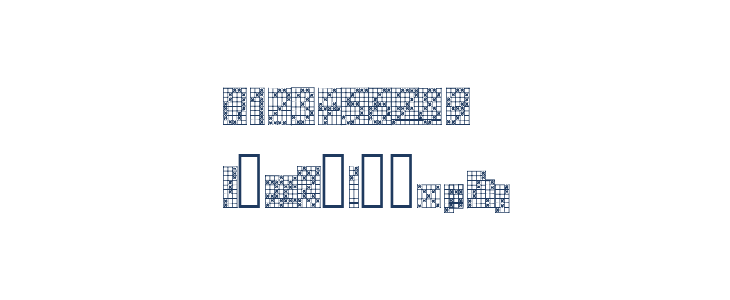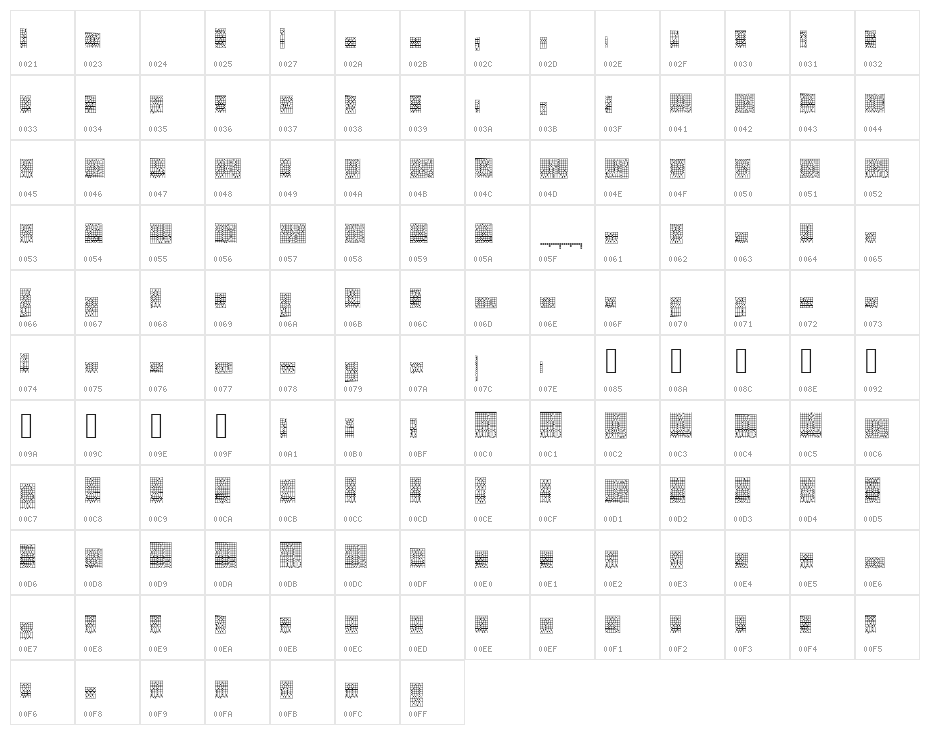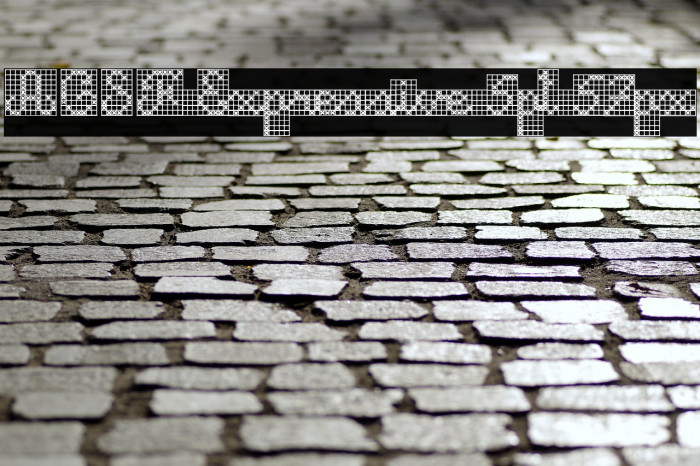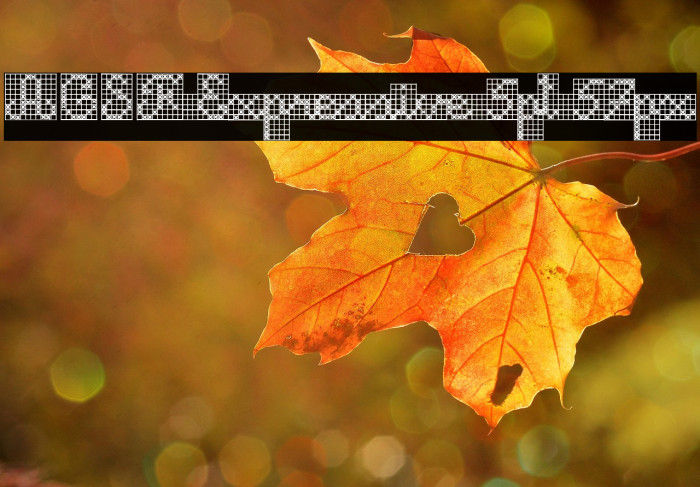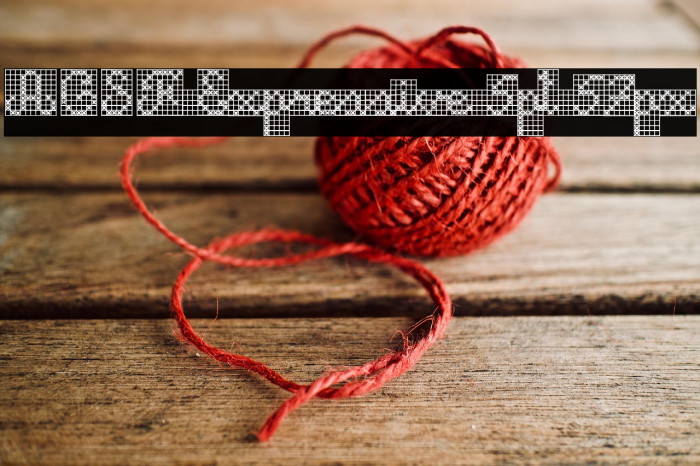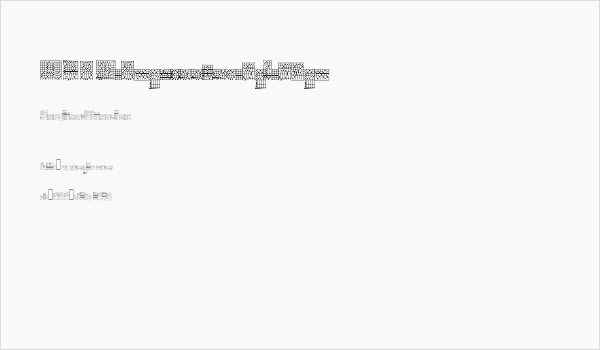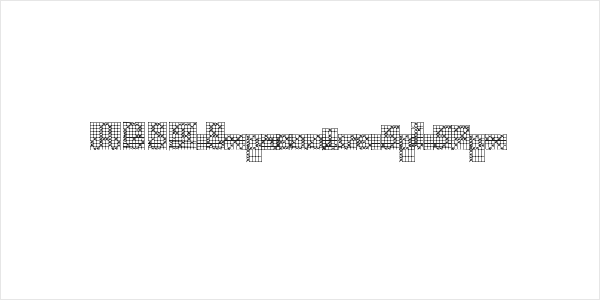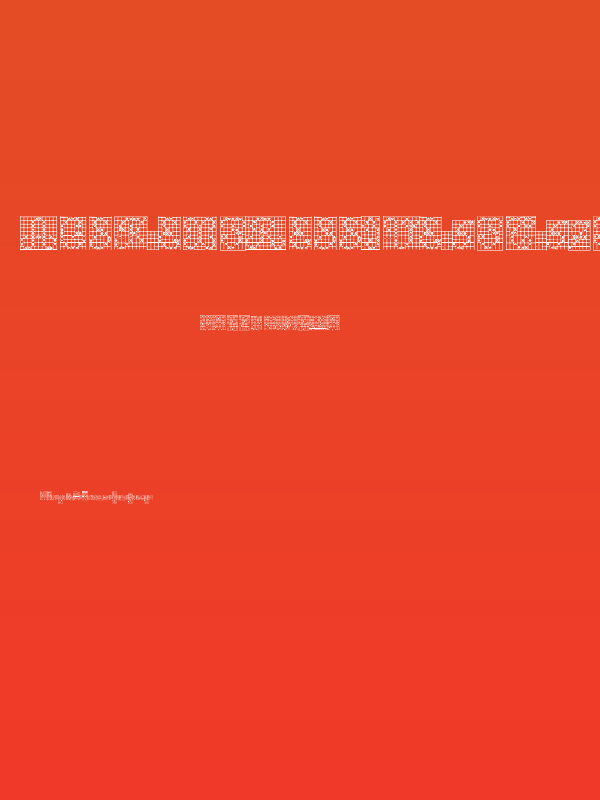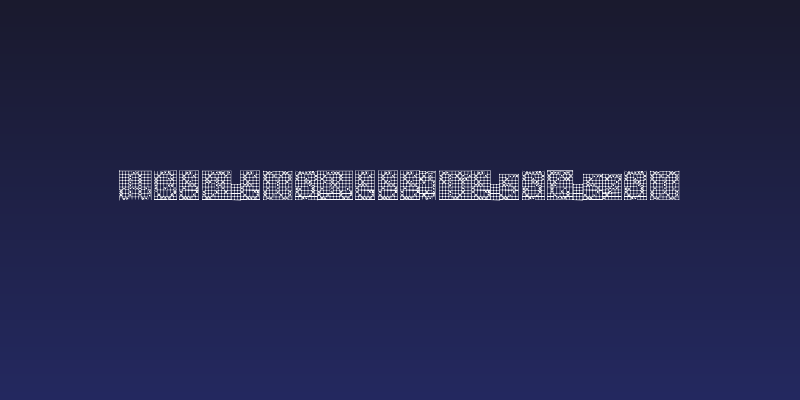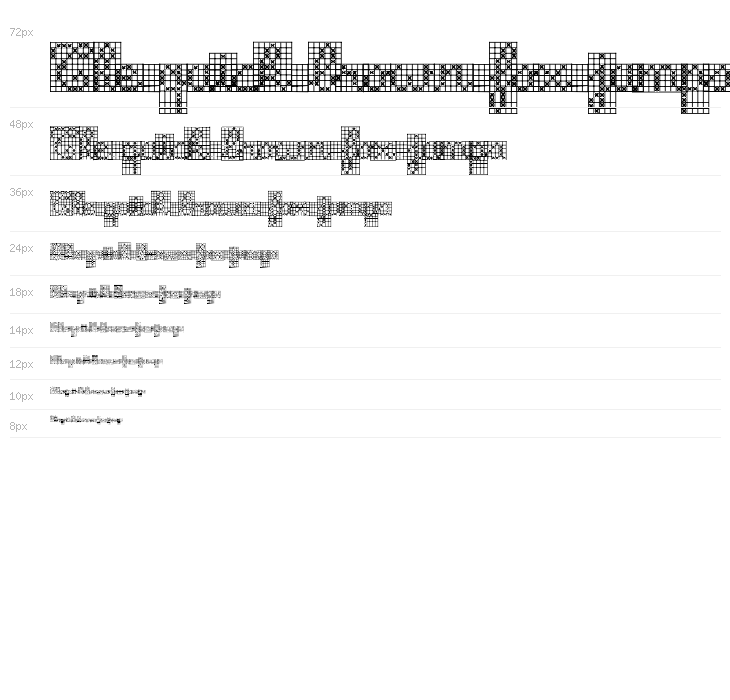
ACSF Expressive 5pt 57px Font
ACSF Expressive 5pt 57px Description
This font is a highly decorative and intricate design, characterized by its grid-like structure filled with cross-hatched patterns. Each character is composed of a series of small squares, creating a mosaic effect that is both unique and visually engaging. The font's complexity and artistic flair make it stand out, with each letter appearing as a piece of art. The characters are evenly spaced, maintaining a consistent pattern throughout. The font's style is reminiscent of digital or pixel art, offering a modern twist on traditional typography.
| Proposed Projects | Ideal for digital art projects, creative posters, unique branding, or any design requiring a standout, artistic typeface. |